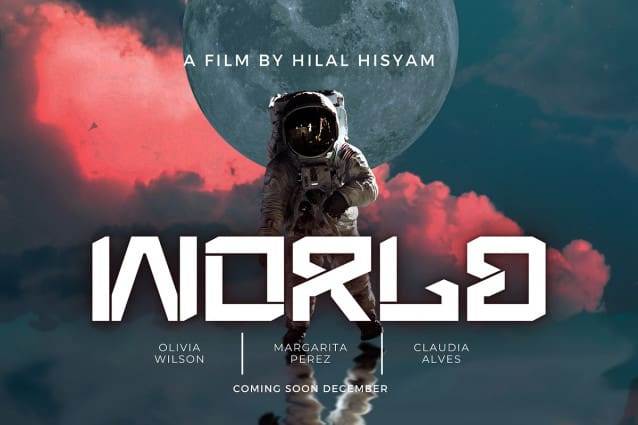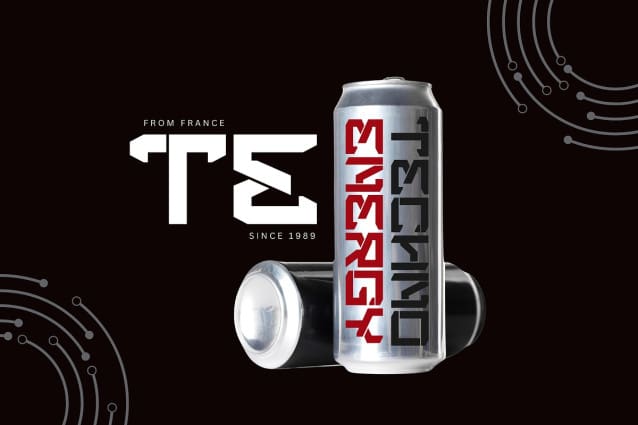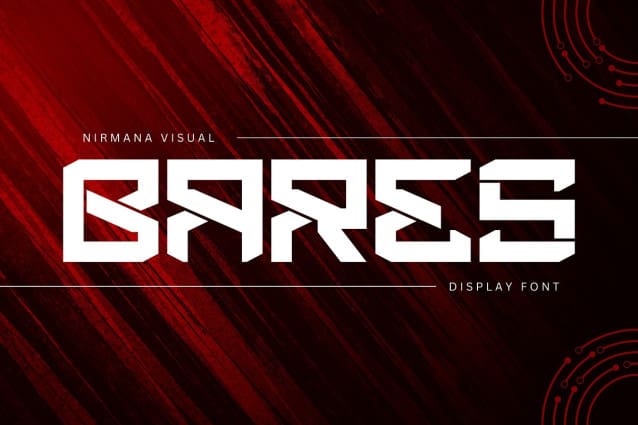
Bares Display Font
Bares Display Font is a futuristic font that combines geometric precision with smooth, flowing lines to create a distinctly modern aesthetic. Its characters feature a balanced mix of sharp edges and subtle curves, evoking a sense of technology and innovation. Designed for high readability, Bares has a minimalistic structure, making it ideal for tech-themed branding, digital interfaces, and forward-looking visual projects. The font embodies a clean, streamlined look that feels equally at home in sci-fi designs and professional layouts. With a unique, timeless style, Bares can enhance titles, logos, and futuristic graphics